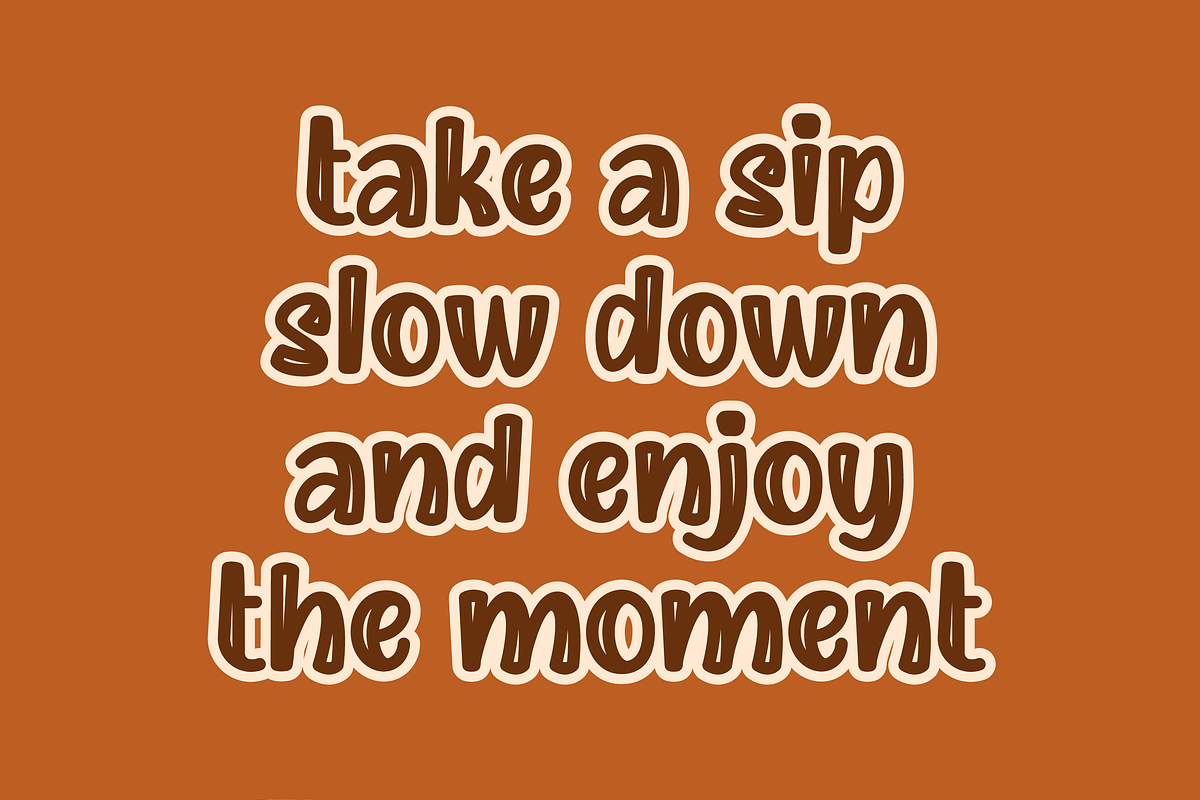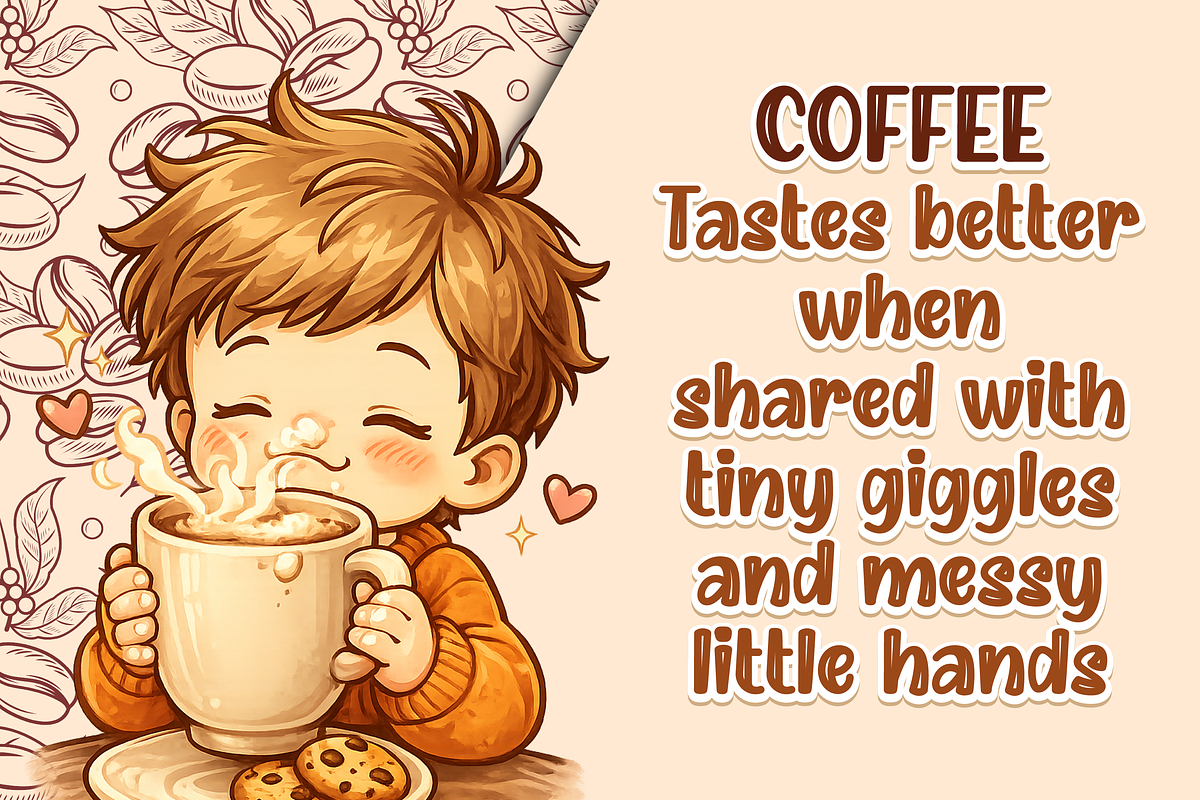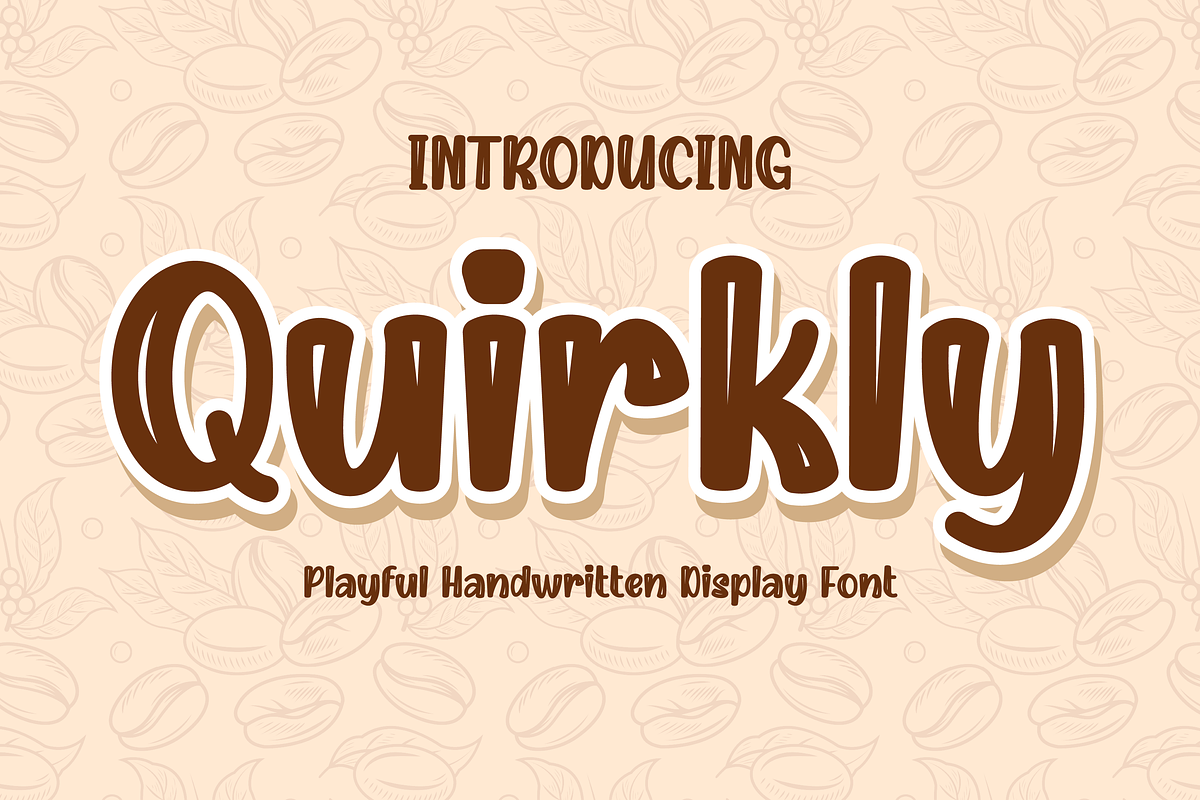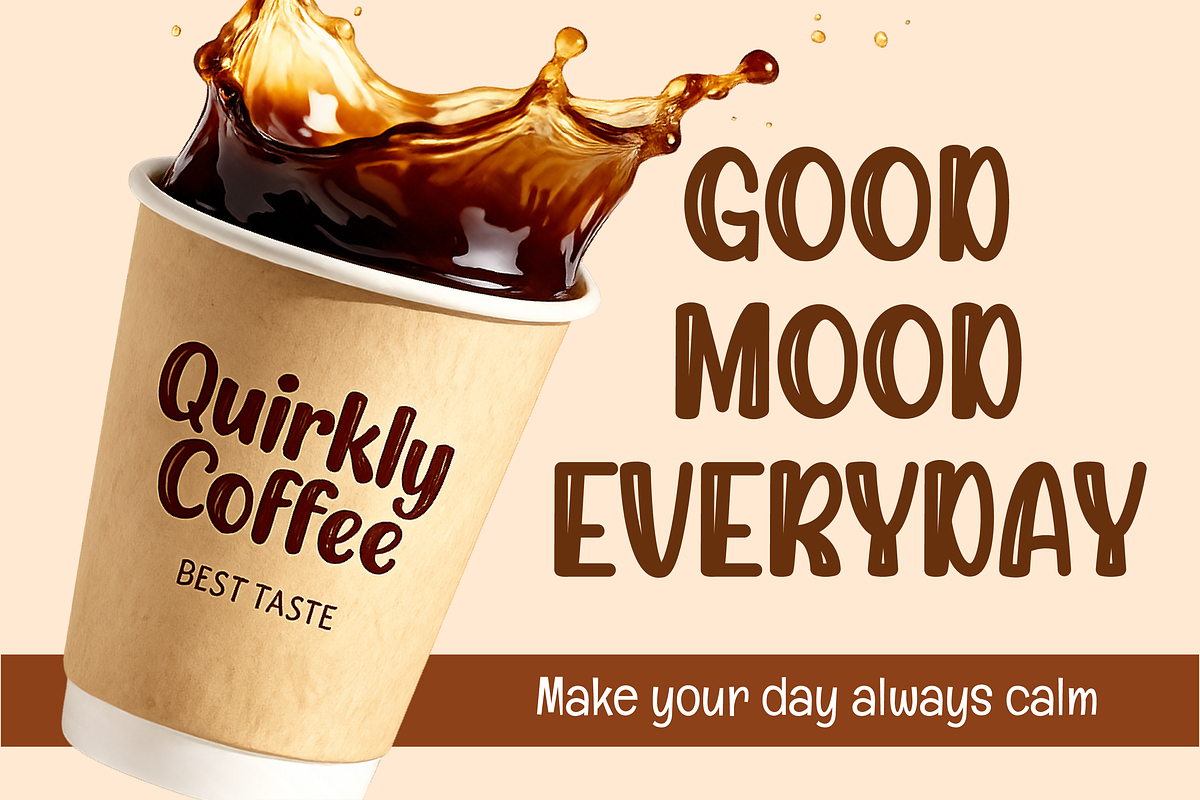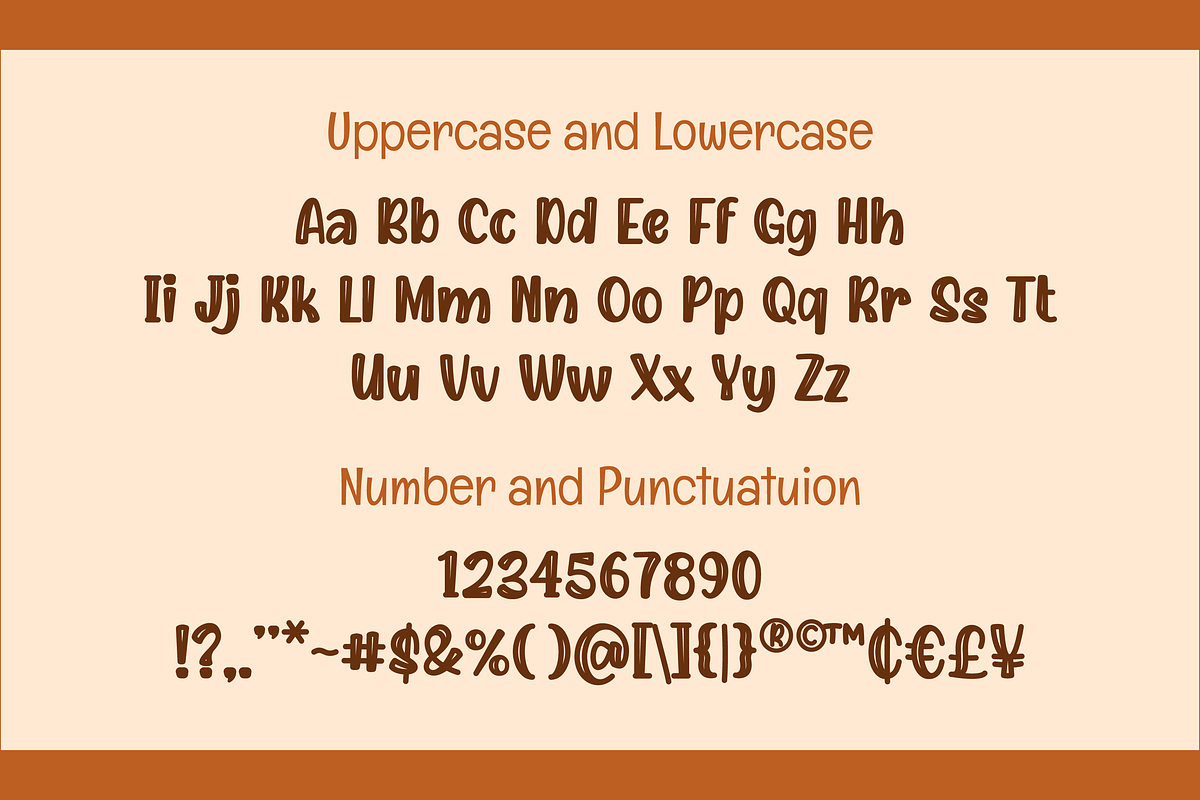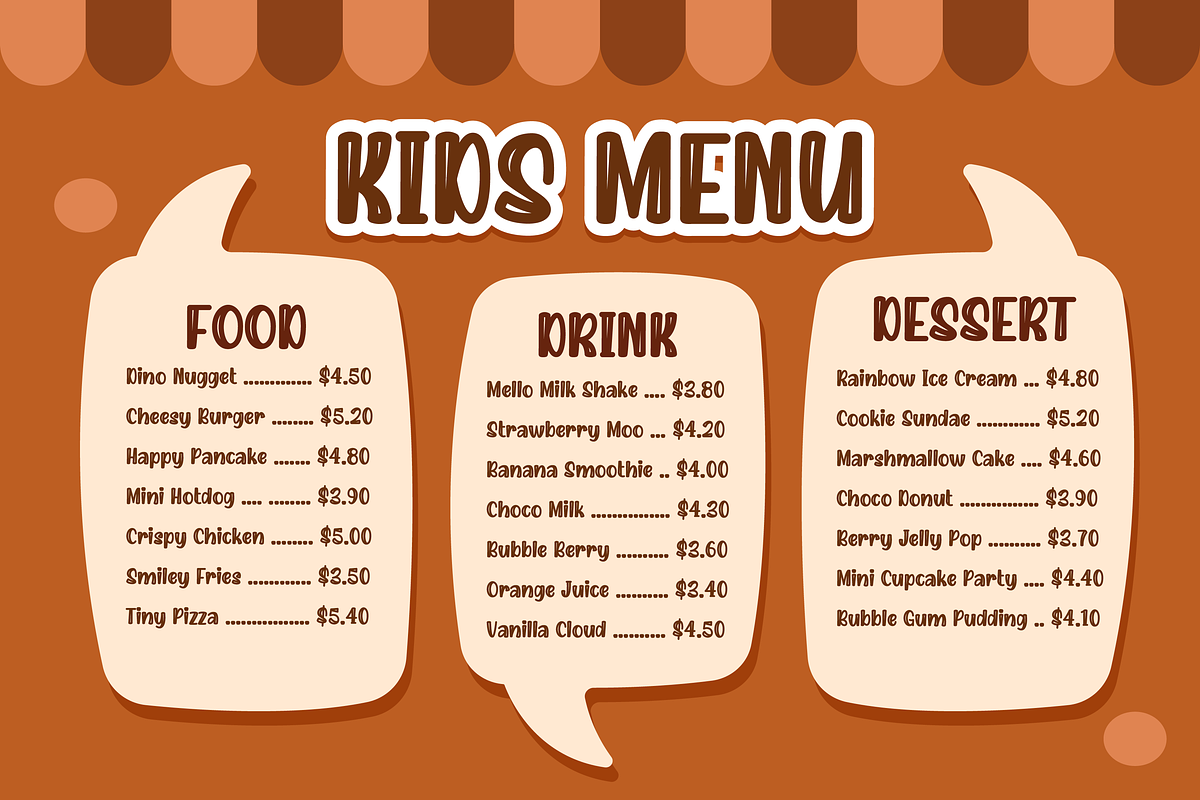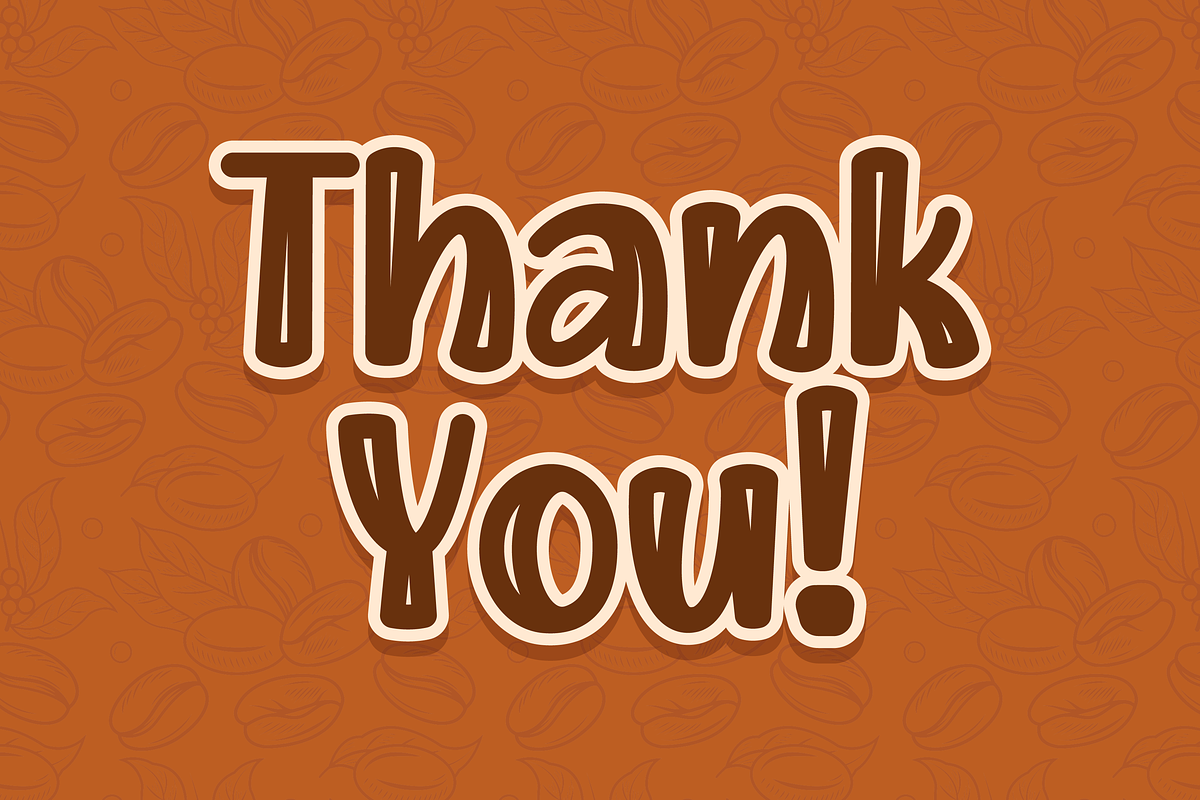
Quirkly Playful Handwritten Display
Quirkly - Playful Handwritten Display Font
Quirkly is a playful handwritten display font with a fun, friendly, and energetic personality. Its bold curves and handcrafted letterforms create a warm and expressive appearance that instantly makes designs feel more lively, casual, and approachable.
With its unique handwritten style and charming character, Quirkly is perfect for branding, packaging, café designs, posters, social media graphics, children’s projects, stickers, greeting cards, merchandise, and creative layouts that need a joyful handmade touch.
This font blends playful creativity with strong readability, making every word feel authentic, cheerful, and full of personality.